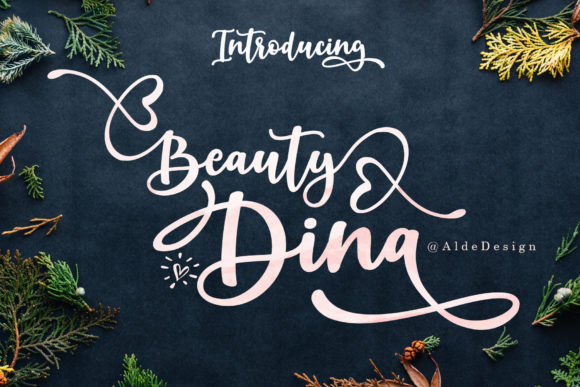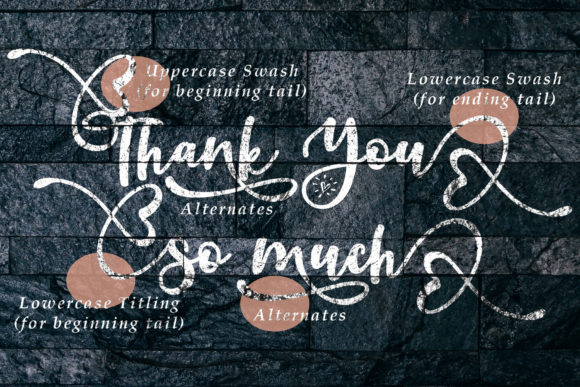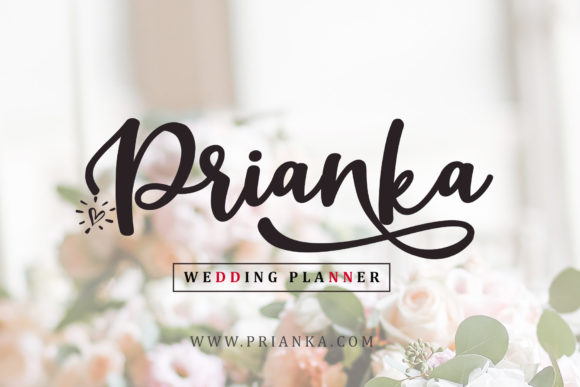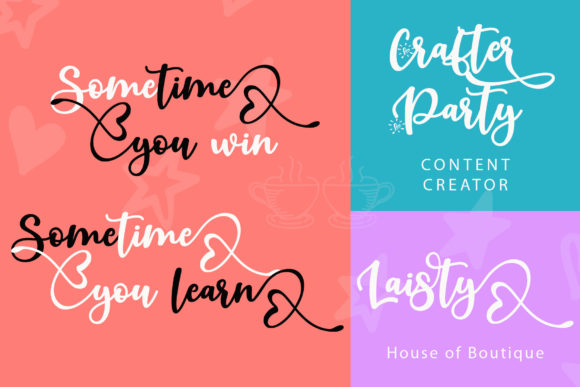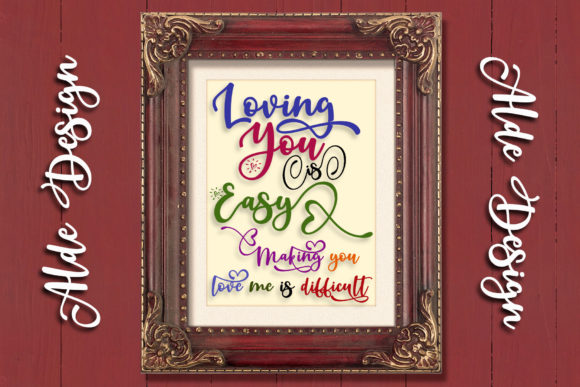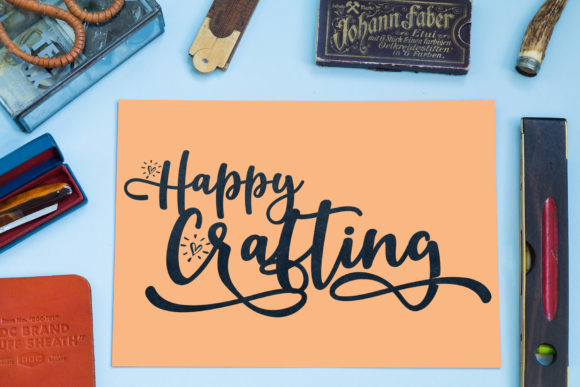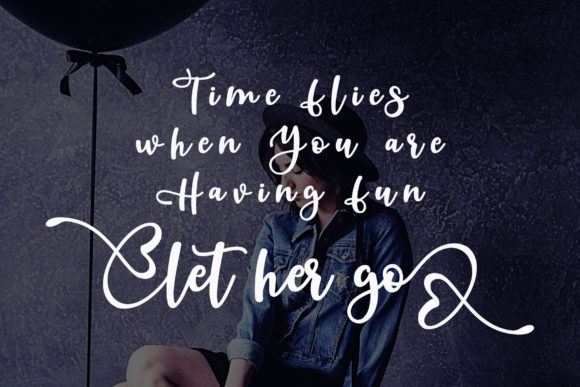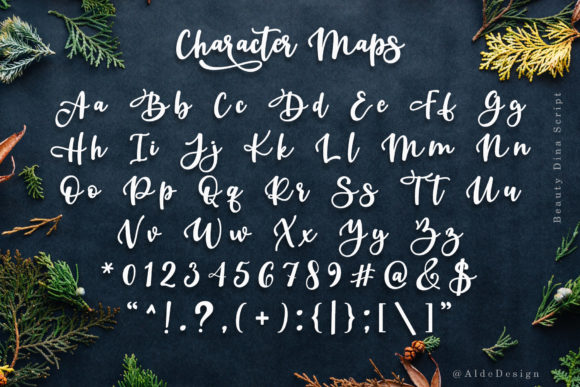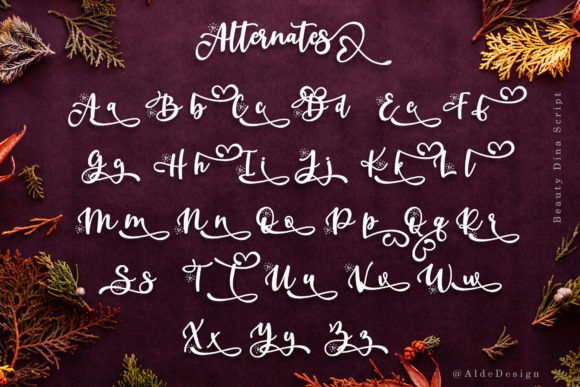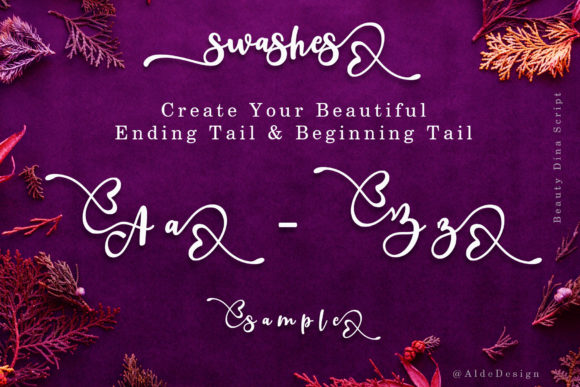
HomeScript FontsBeauty Dina Font Script Fonts Beauty Dina Font FacebookXPinterestWhatsApp Beauty Dina Font Poster 2 Beauty Dina Font Poster 3 Beauty Dina Font Poster 4 Beauty Dina Font Poster 5 Beauty Dina Font Poster 6 Beauty Dina Font Poster 7 Beauty Dina Font Poster 8 Beauty Dina Font Poster 9 Beauty Dina Font Poster 10 About Beauty Dina Font Beauty Dina is a stunning script that will add a beautiful feel to your next crafting project. DOWNLOAD ON CREATIVE FABRICAThis font is sold and delivered by Creative Fabrica. Font Canyon may earn a commission if you buy through this link. People also explored Allore Valore Font Sttorylink Font Zlatan Medium Font Finlandianight Font Allezia Sttacy – Handwritten Font Coffee Mug Mock Up Music Stock Photo Cup Honeycomb Font East Font Smart People Font 287 0 TagsBeauty Dina Font Previous articleRosse FontNext articleAbigail Script Font LEAVE A REPLY Cancel reply Comment: Please enter your comment! Name:* Please enter your name here Email:* You have entered an incorrect email address! Please enter your email address here Website: Save my name, email, and website in this browser for the next time I comment. Personal Use Free Carnivals Personal Use Free Read more about this font Happy Camping Personal Use Free Read more about this font Autines Personal Use Free Read more about this font Kredit Personal Use Free Read more about this font BLOG How to Install and Use Fonts on Windows, macOS, and Web Projects How to Install and Use Fonts on Windows, macOS, and Web Projects Fonts are a crucial part of design and branding. Whether you’re designing a... Best Fonts for T-Shirt Design – Top 2025 Picks Fonts That Capture the Spirit of New York City Exploring Font Trends